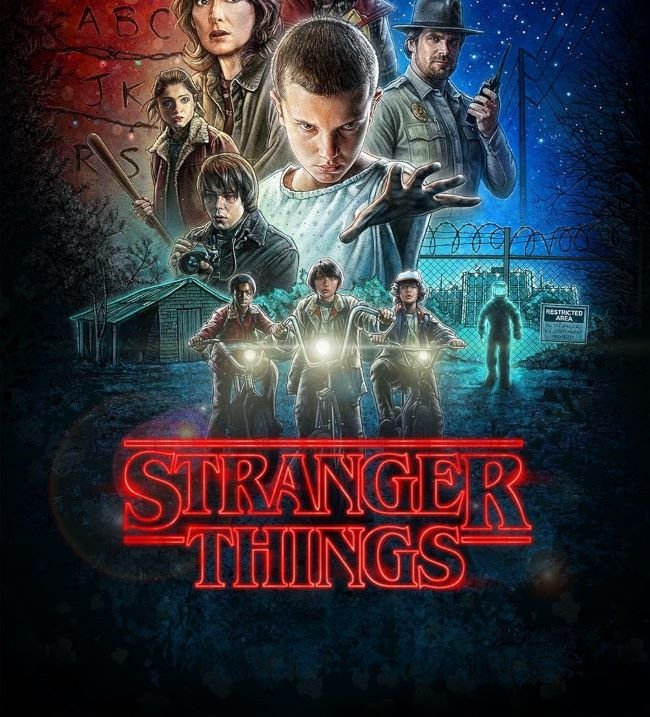
Stranger Things font is ITC Benguiat Bold Condensed — designed by Ed Benguiat in 1977 — and the Duffer Brothers’ choice of it for their 2016 Netflix series was a decision of such precise cultural calibration that it became the definitive typographic signifier of 1980s nostalgia in contemporary pop culture almost overnight. The typeface’s dramatic, slightly condensed art deco-inflected serif forms appeared on countless Stephen King paperback covers, rock album covers, and horror paperbacks throughout the decade it evokes, which means that for anyone who grew up in the 1980s, encountering it is less like reading a title than stumbling across a memory. Two versions are available: the solid Stranger Things Font and the Outlined version.